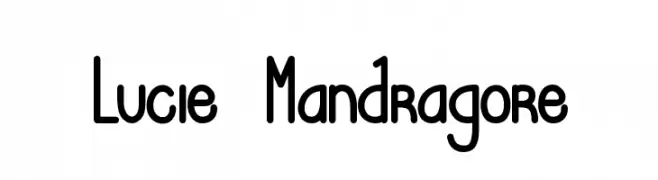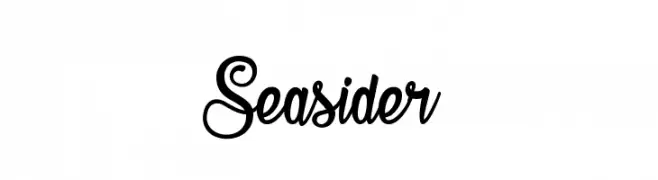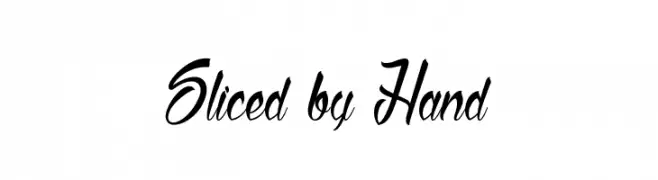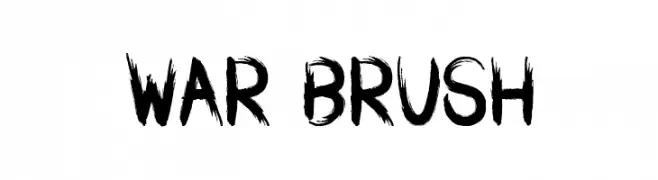
A dynamic and elegant script font with flowing curves and a modern touch.
A playful, rounded font with consistent stroke width and a whimsical style.
An elegant and intricate script font with flowing, interconnected letterforms.
A dynamic and elegant script font with smooth connections and stylish flair.
A dynamic, hand-drawn calligraphic font with fluid, expressive strokes.
A dynamic and flowing script font with elegant curves and smooth transitions.
A bold, geometric, and futuristic outlined font with a playful aesthetic.
A bold, brush-stroke style font with a dynamic and textured appearance.
An elegant and decorative script font with flowing, ornate characters.
Ornamental dingbat font with decorative frames and flourishes.